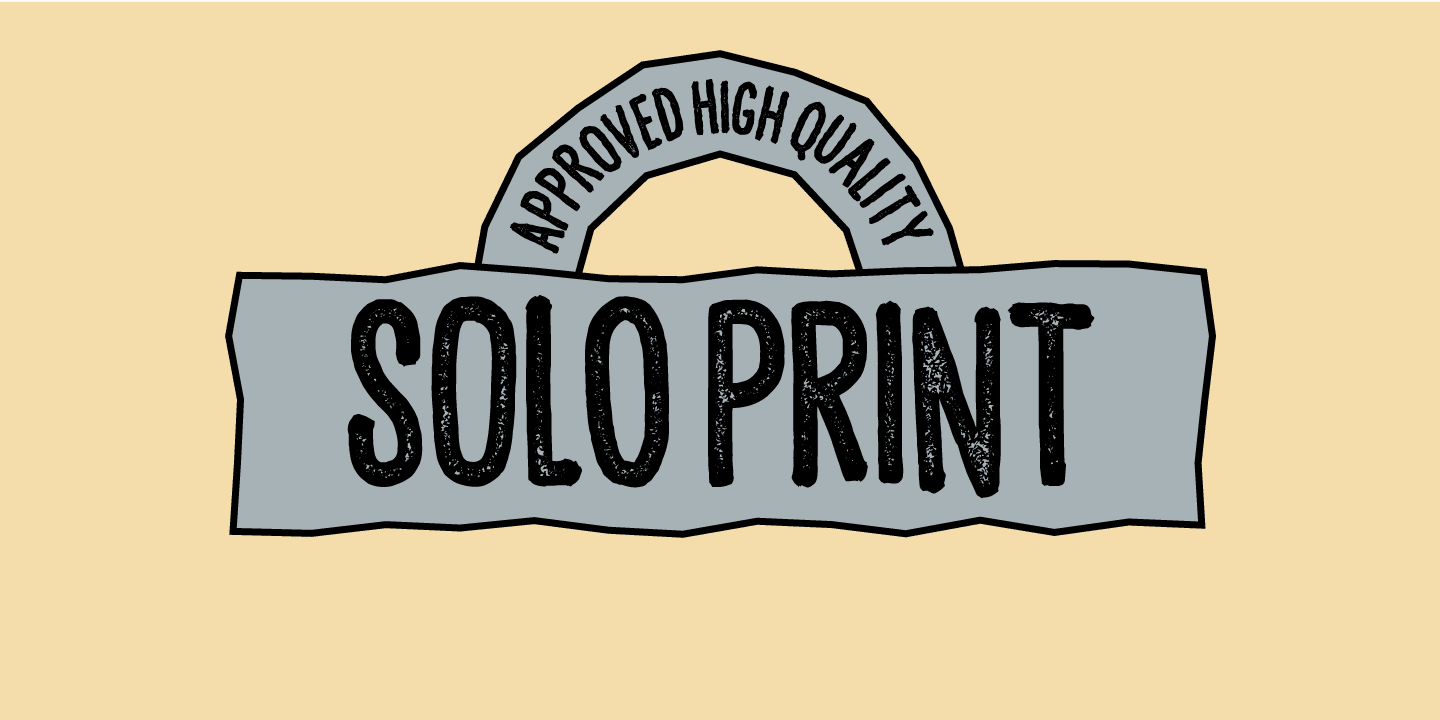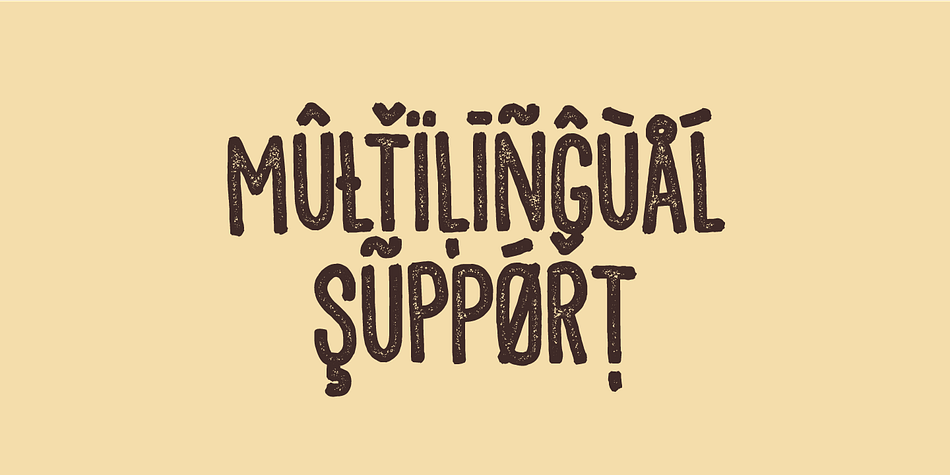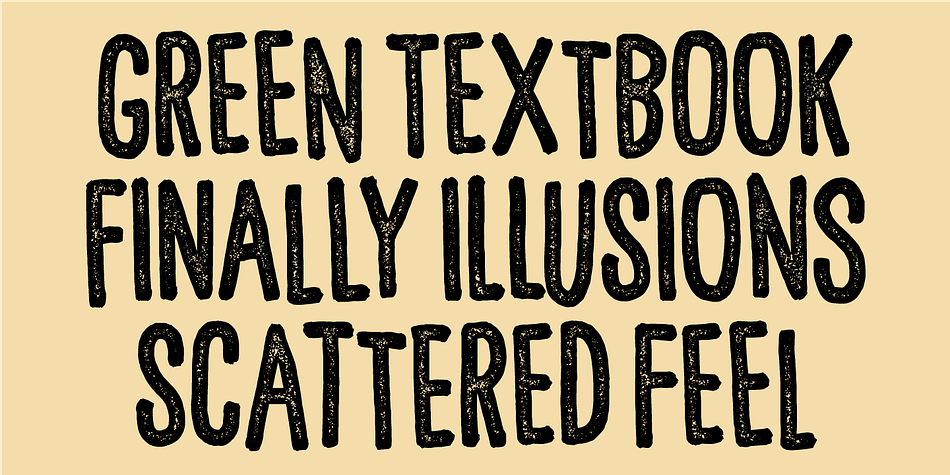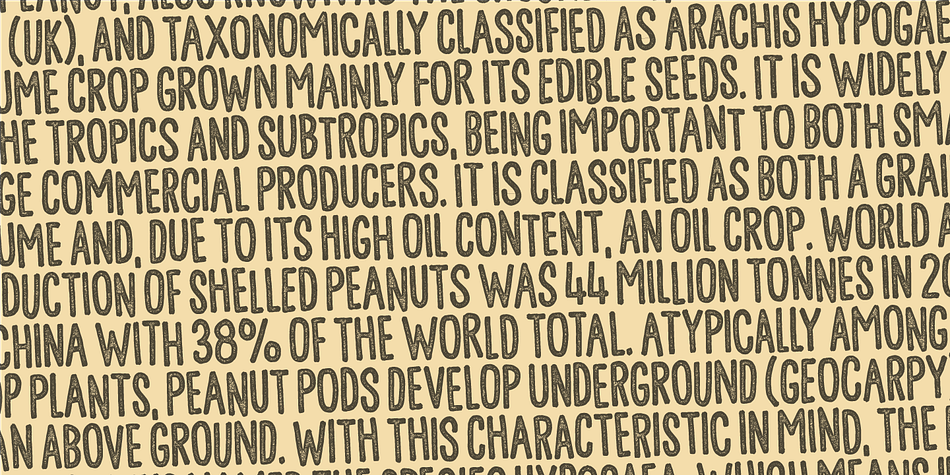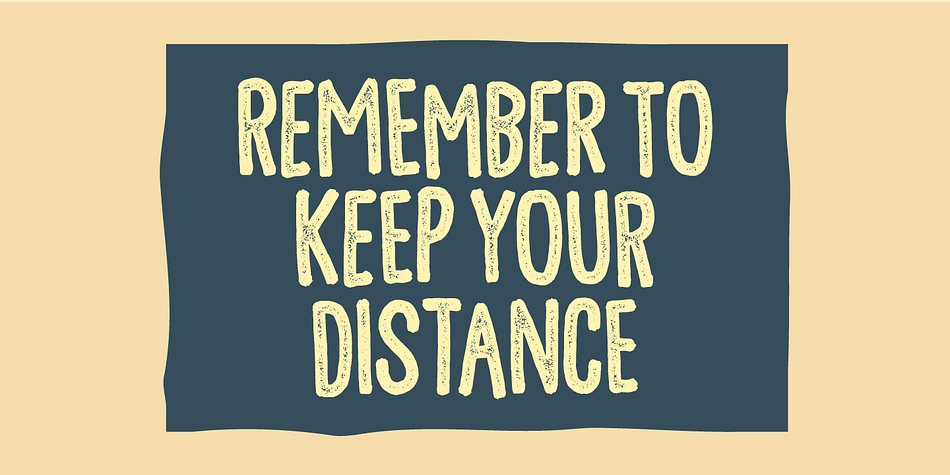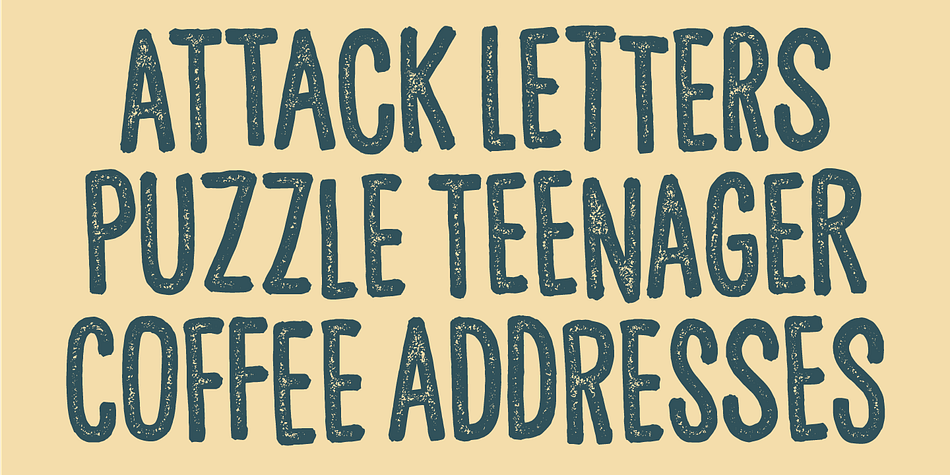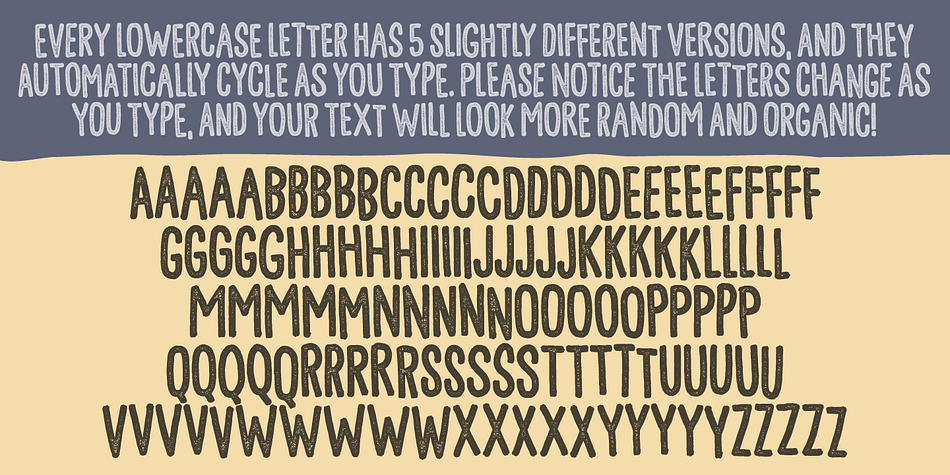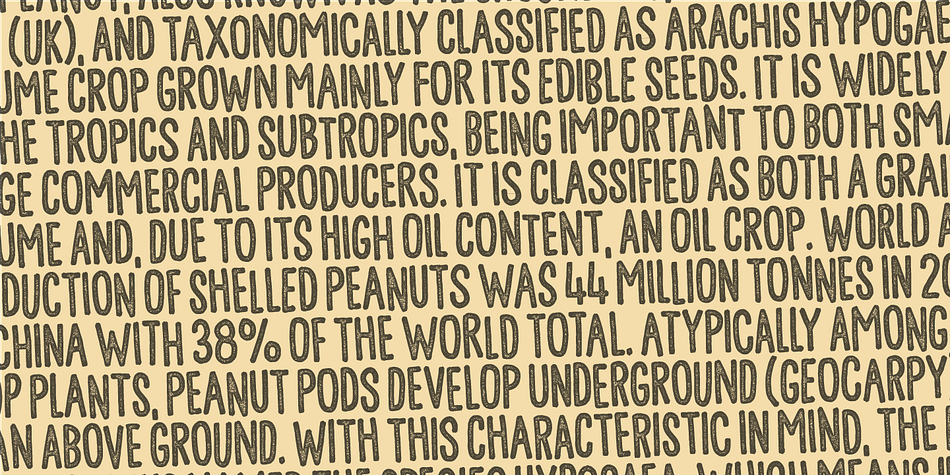
Designed by Jakob Fischer, Solo Print is a hand display font published by Pizzadude.dk.
Solo Print mimics letters that had a close encounter with a slightly bad copy machine, The 5 different versions of each letter makes it even more realistic!